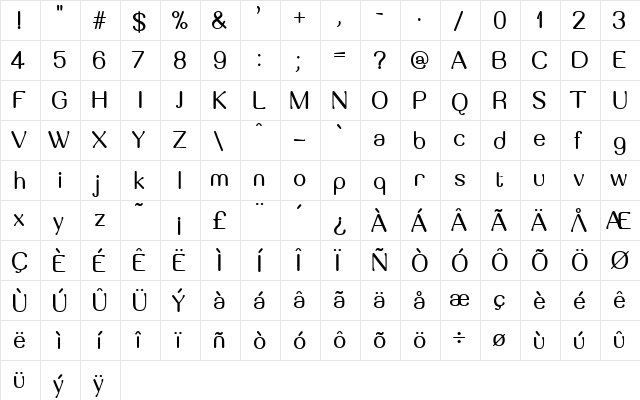
Massa regular
| Foundry | Tino Mendes |
| Designer | Tino Mendes |
Design Context for Massa Typeface
Massa takes a measured approach to typography — its balanced proportions and neutral character make it a reliable workhorse for both digital and print work.